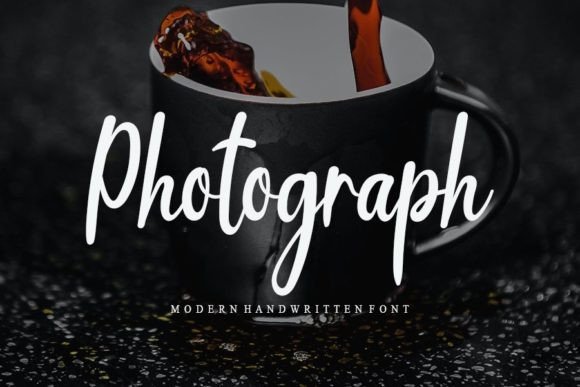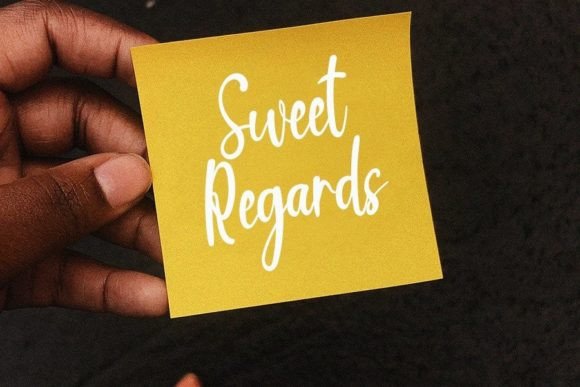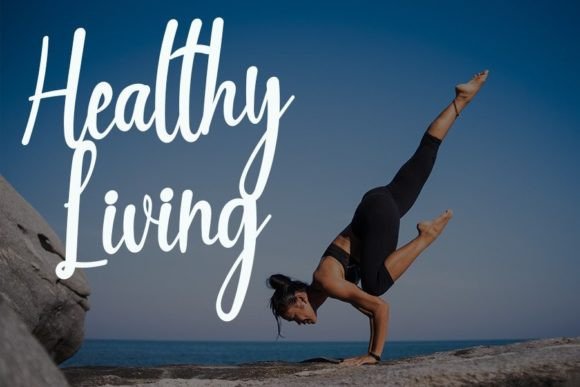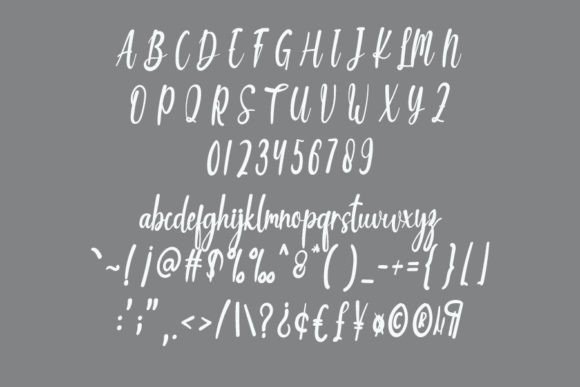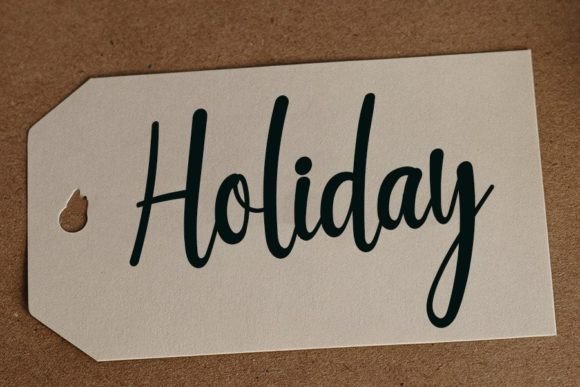
About Photograph Font
“Photograph” sounds like a beautiful and versatile handwritten font with a unique feel, promising to add a lovely spark to any design or creative project. Fonts with a versatile and unique style can enhance the visual impact of various design endeavors, making them stand out.
Consider incorporating “Photograph” into your creative projects to experience its beauty and versatility. Whether you’re working on branding, posters, invitations, or any other design project, this font seems poised to bring a stunning and impactful aesthetic.
Fonts play a crucial role in shaping the overall look and feel of designs, and “Photograph” appears to offer a distinctive touch that can elevate the visual appeal of your creations. Enjoy using “Photograph” in your creative endeavors, and may it contribute to making your projects even more beautiful and memorable!